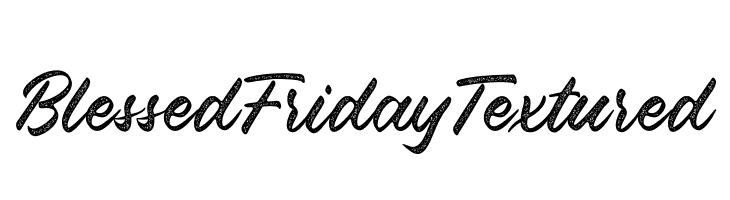
A bold, high-contrast cursive font with dynamic and decorative letterforms.
A playful, handwritten-style font with bold, slightly slanted characters.
A dynamic italic font with smooth, flowing strokes and a modern style.
A dynamic and fluid script font with elegant, flowing letterforms.
A dynamic, fluid script font with elegant, flowing lines and an italicized style.
A sophisticated handwritten script with fluid, cursive strokes.
A bold, expressive font with sharp edges and sweeping curves.